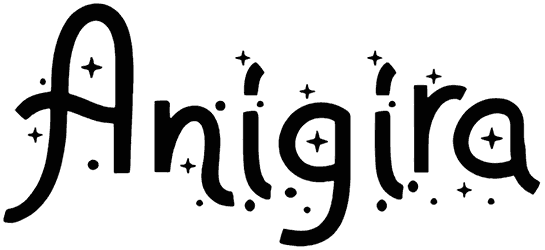
Anigira Font
Anigira is a suitable option for snakes with images and festive scenes that can turn your design into a bright spot. With this magic font and its rain star shape, you can add a pleasant touch to your Christmas and unique occasion designs that will make reading the text enjoyable, even without numbers.